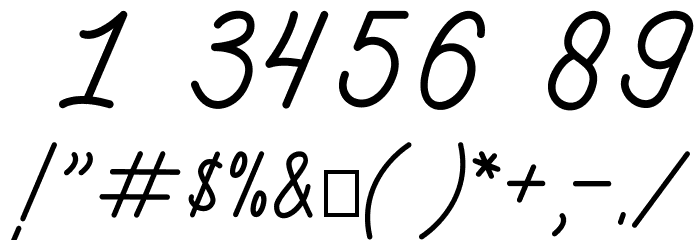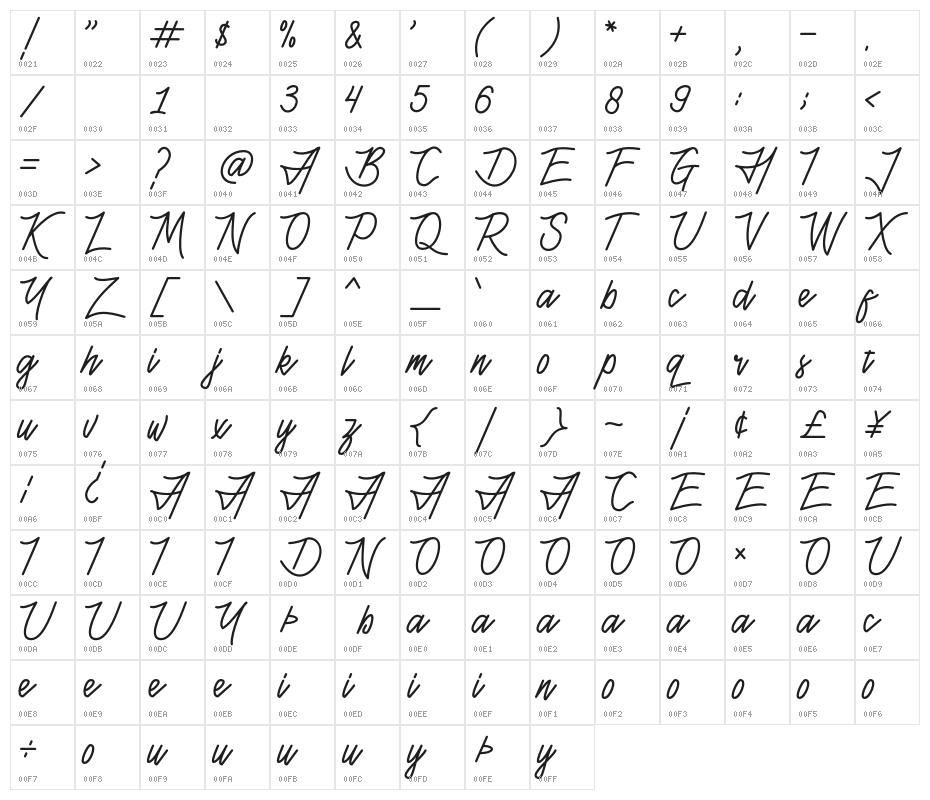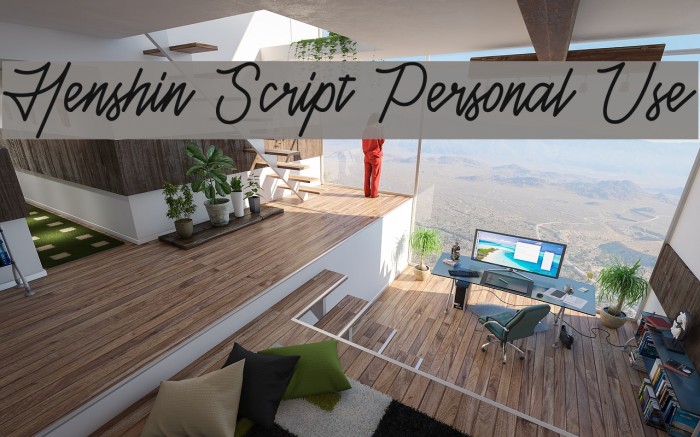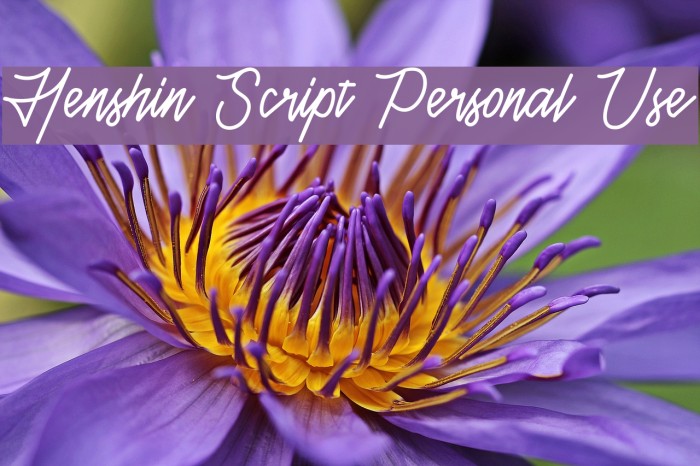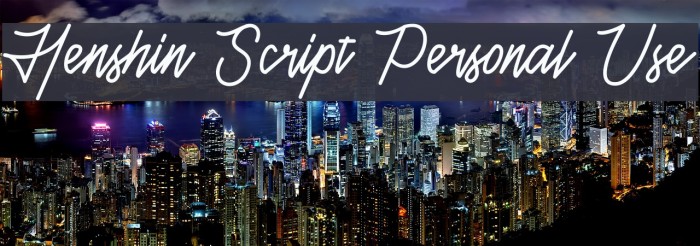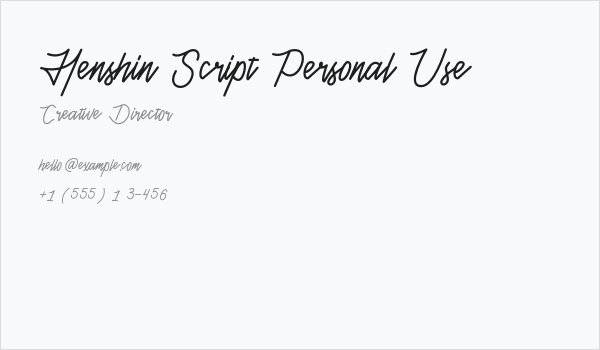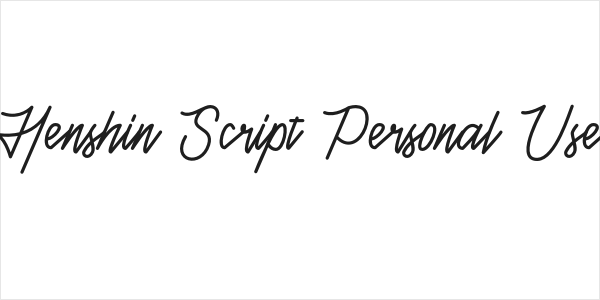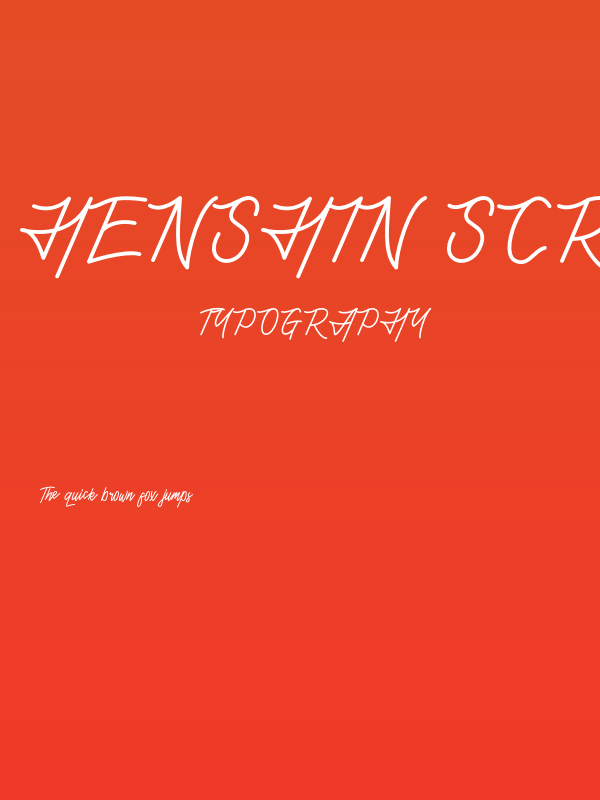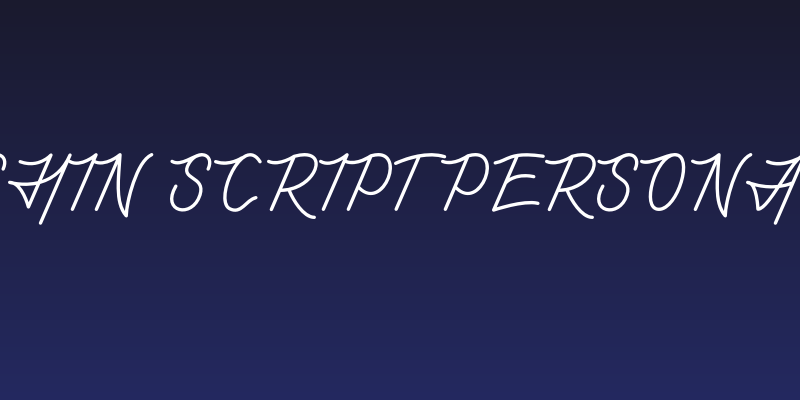
Henshin Script Personal Use Font
Henshin Script Personal Use Description
This font features a dynamic and fluid script style, characterized by its elegant, flowing lines and cursive letterforms. The uppercase letters are distinct with a slight slant, while the lowercase letters exhibit a more pronounced cursive style, enhancing the overall fluidity. The numbers and special characters maintain the script's cohesive style, offering a harmonious look across all characters. The font's design is both sophisticated and approachable, making it suitable for a variety of creative applications.
Gartype Studio
| Proposed Projects | Ideal for wedding invitations, greeting cards, branding projects, and elegant logo designs. |